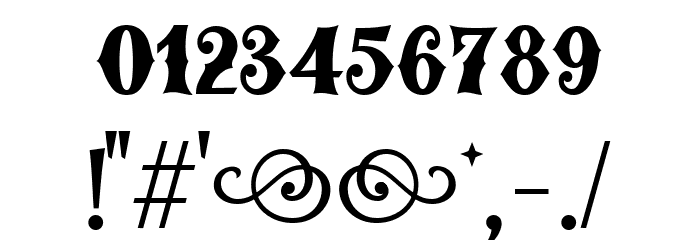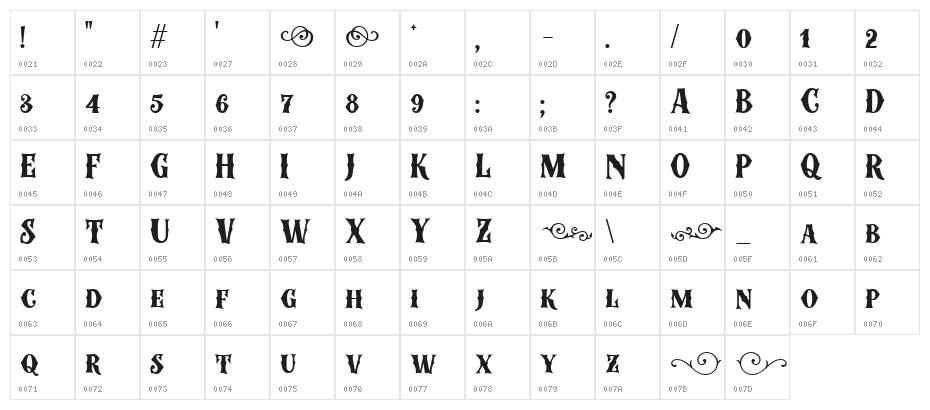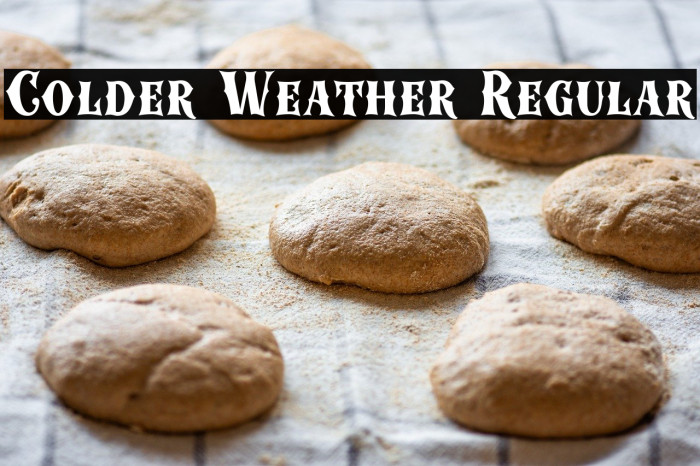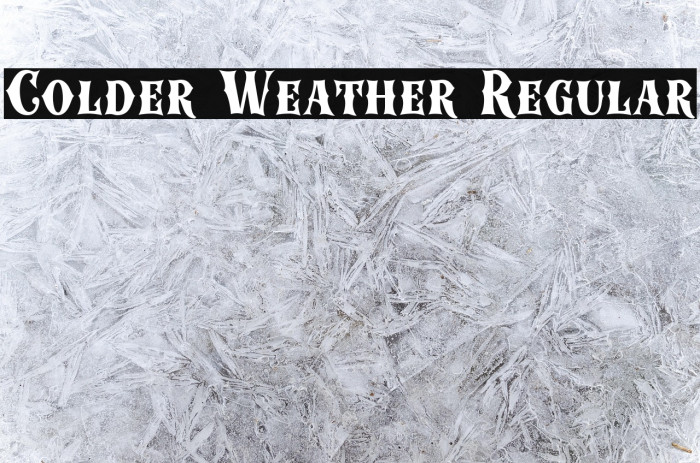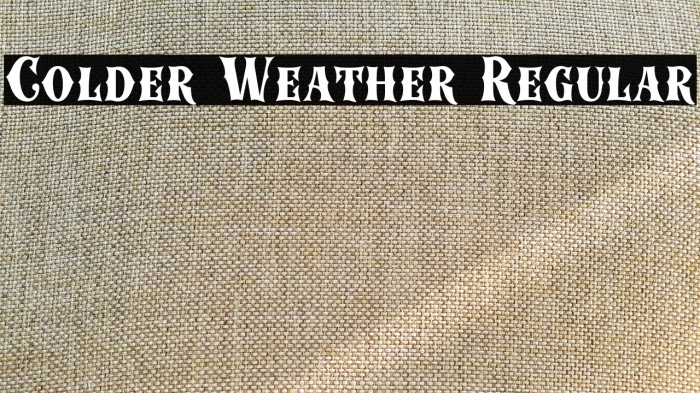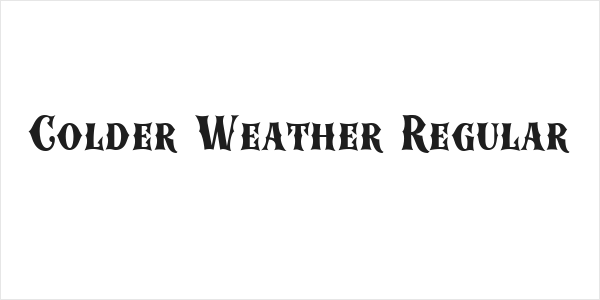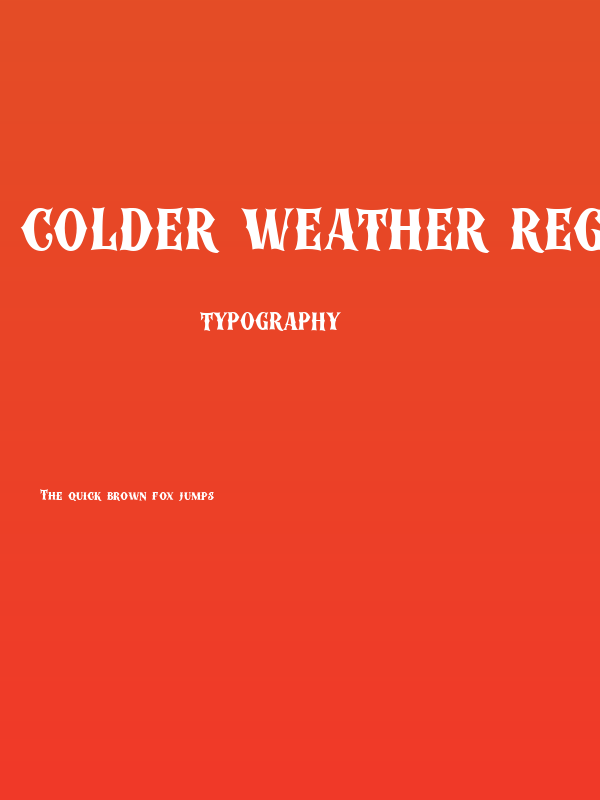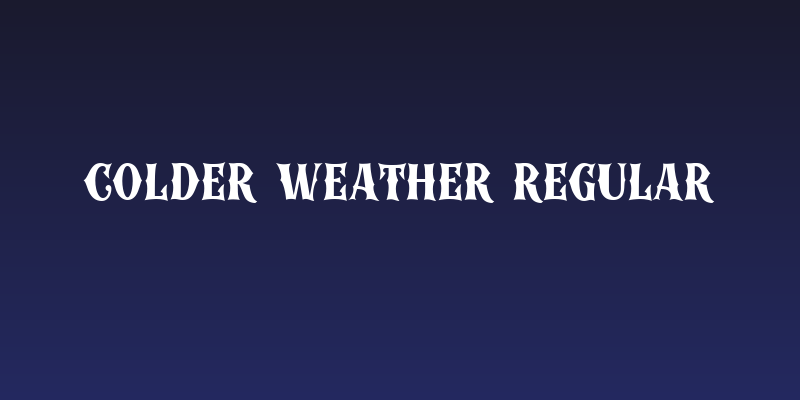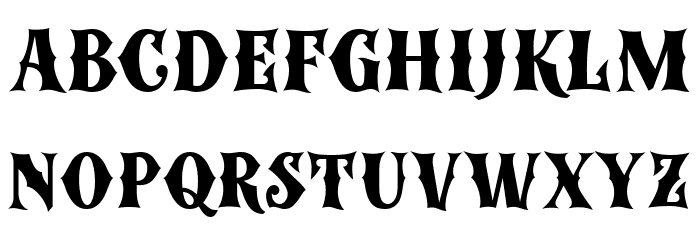
Colder Weather Regular Font
Colder Weather Regular Description
This font features a bold and dramatic style with sharp, angular serifs and a strong presence. The uppercase letters are particularly striking, with a gothic influence that gives them a unique flair. The lowercase letters maintain the same boldness, ensuring consistency across the typeface. Numbers are equally robust, with a distinct style that complements the letters. Special characters are ornate, adding a decorative touch that enhances the overall aesthetic. The font's design is reminiscent of vintage signage or classic horror movie posters, making it ideal for projects that require a bold, eye-catching typeface.
| Overall Style | Vintage, Gothic |
| Proposed Projects | Ideal for vintage posters, horror-themed designs, book covers, and branding that requires a bold statement. |